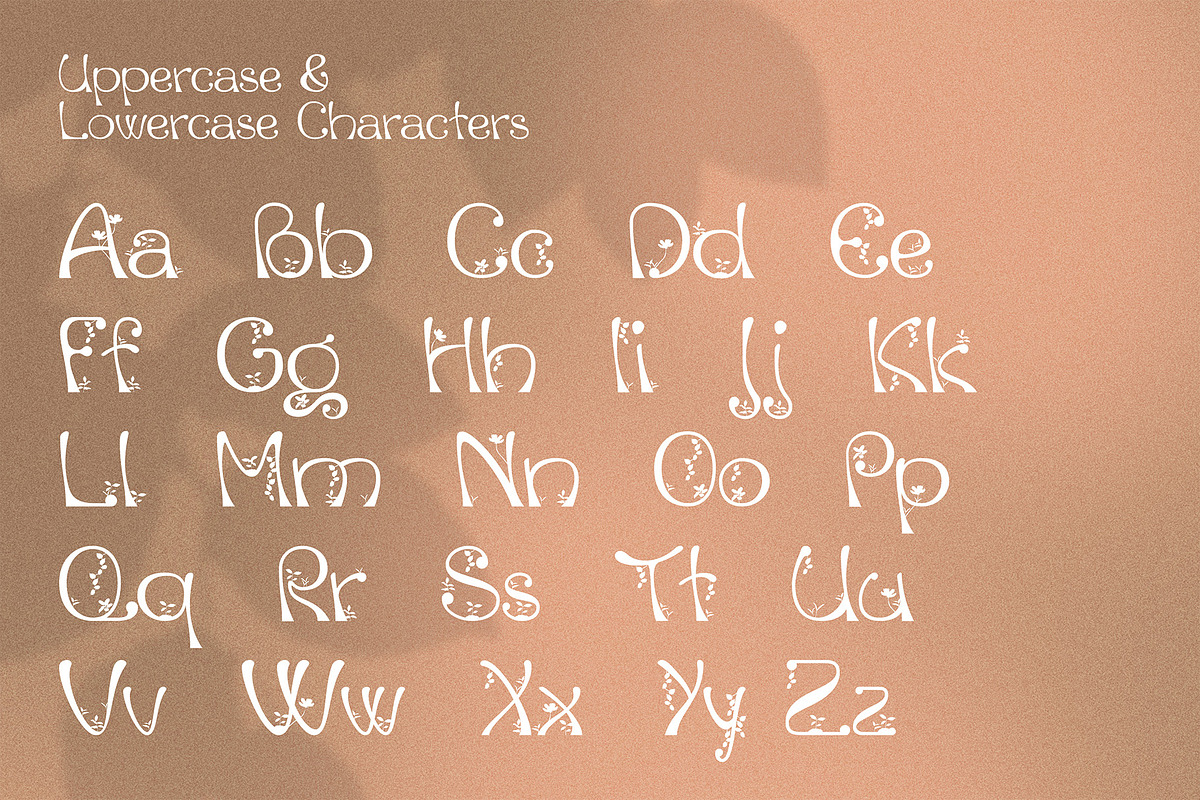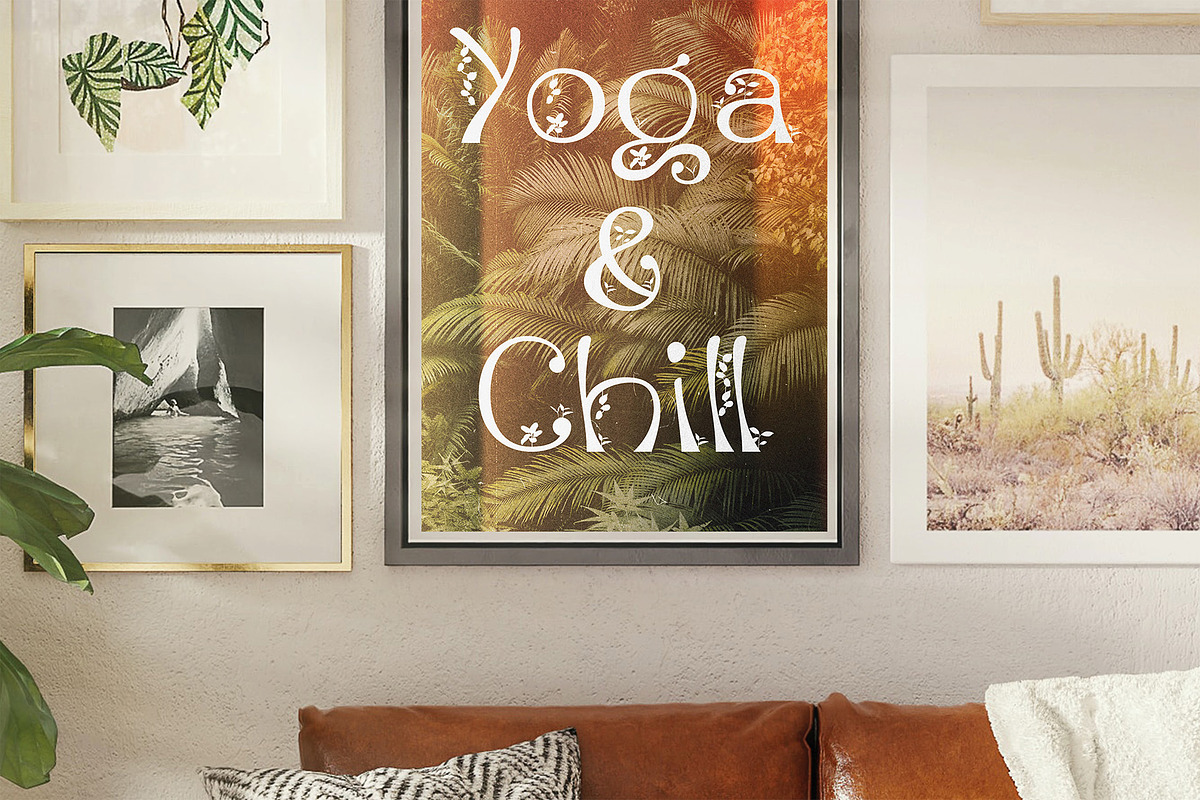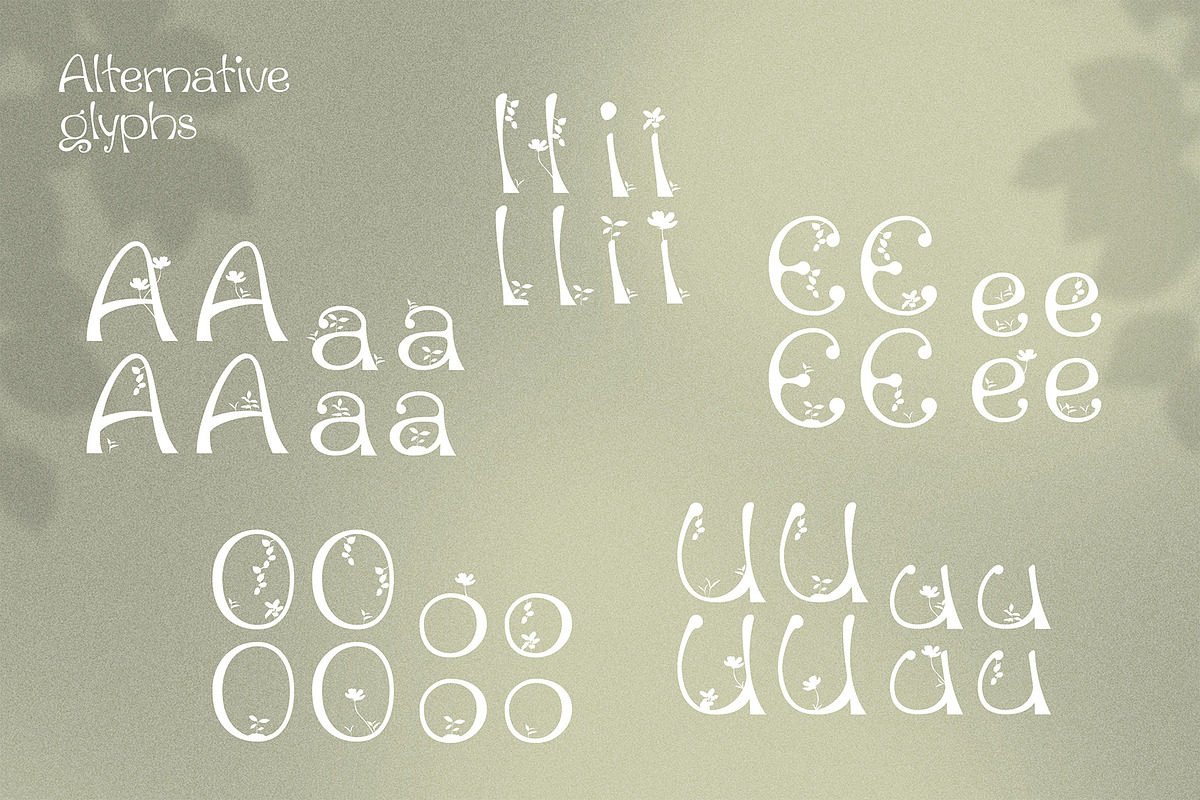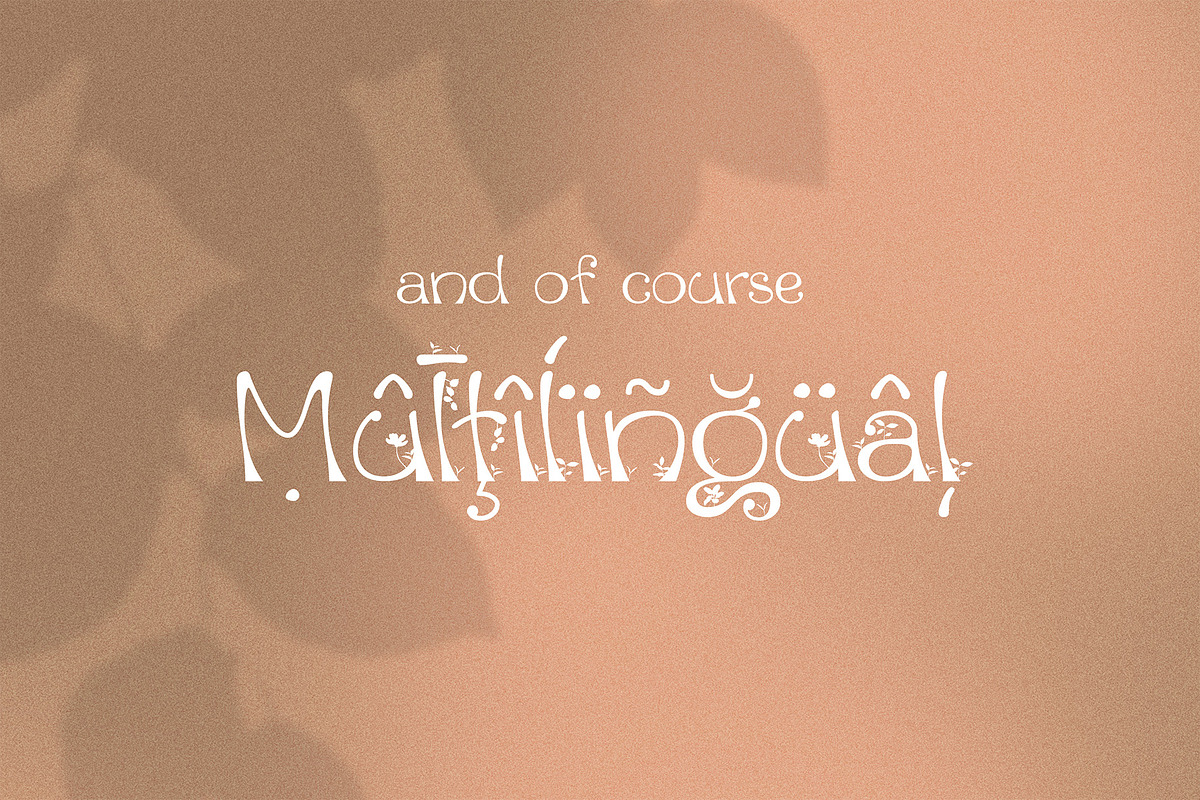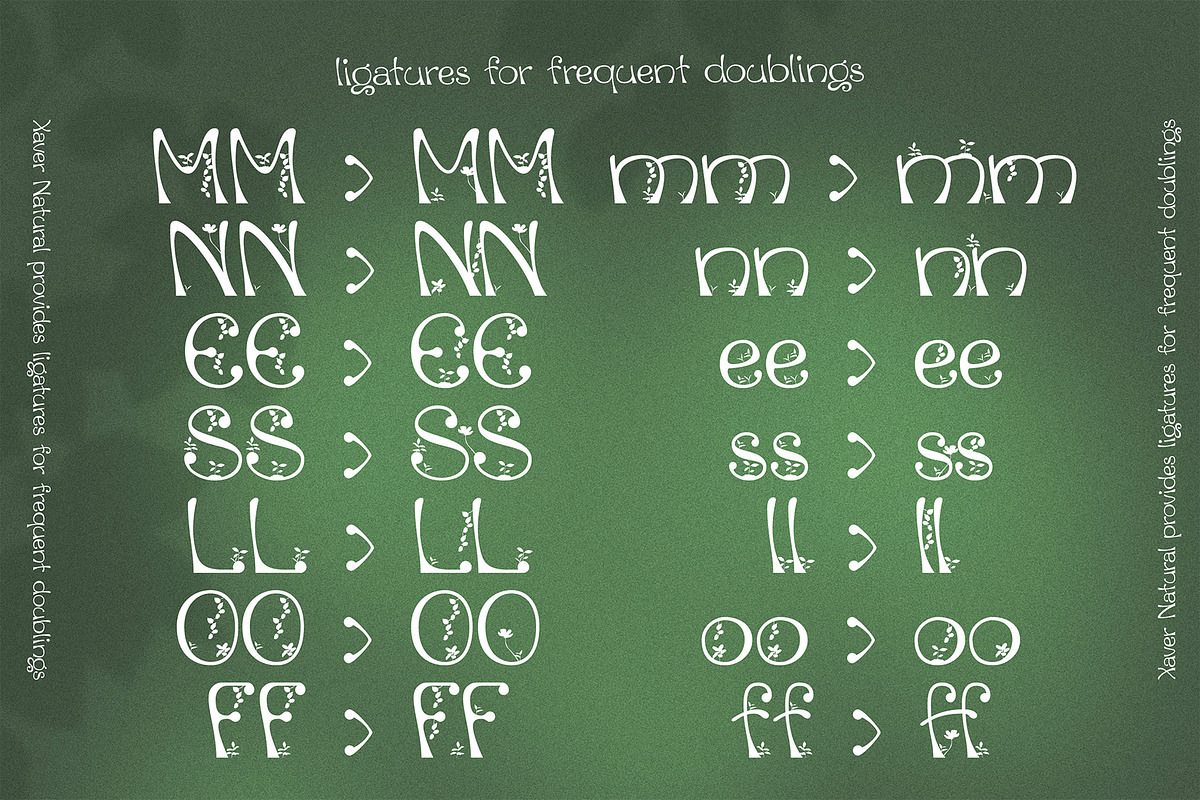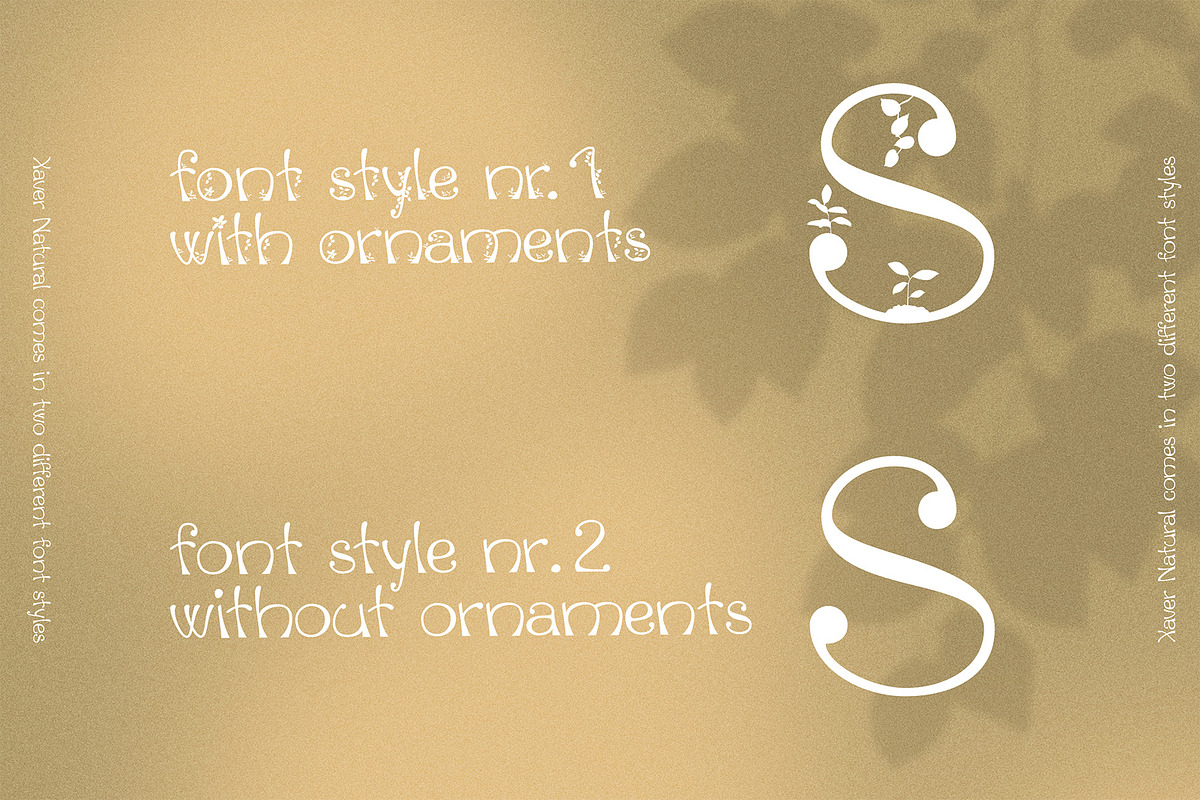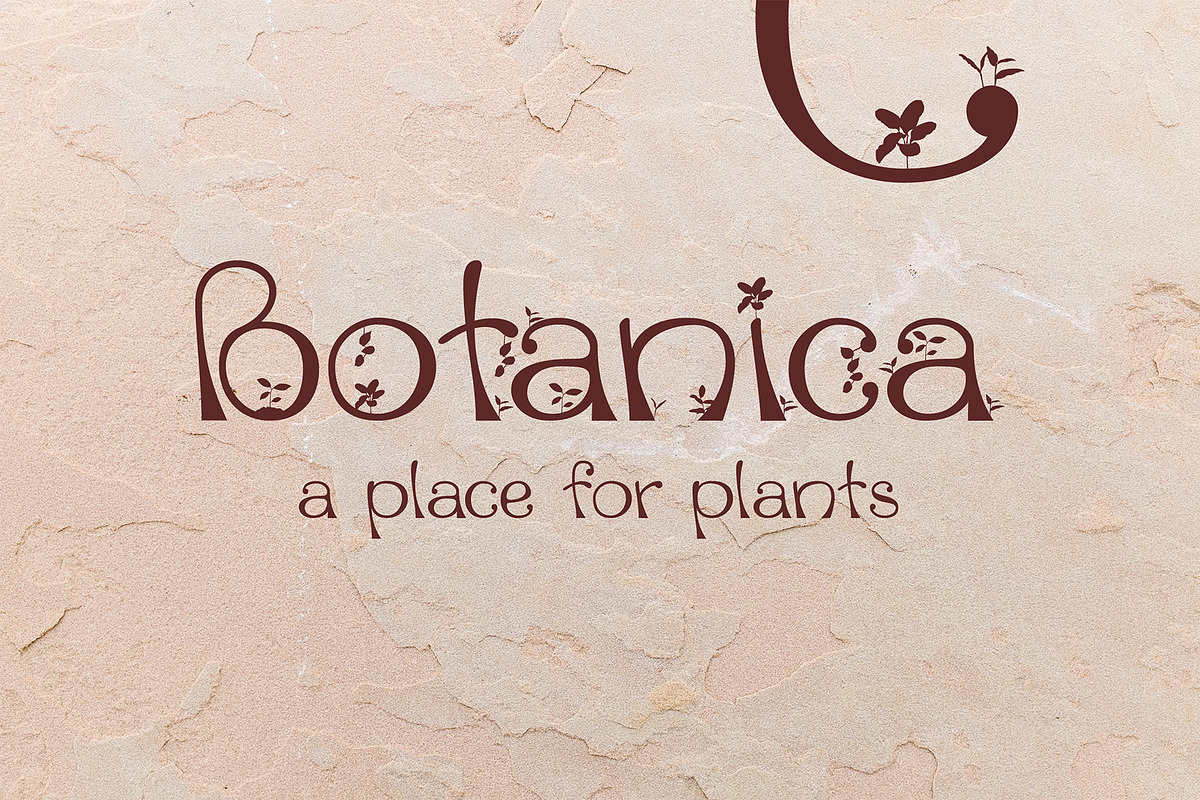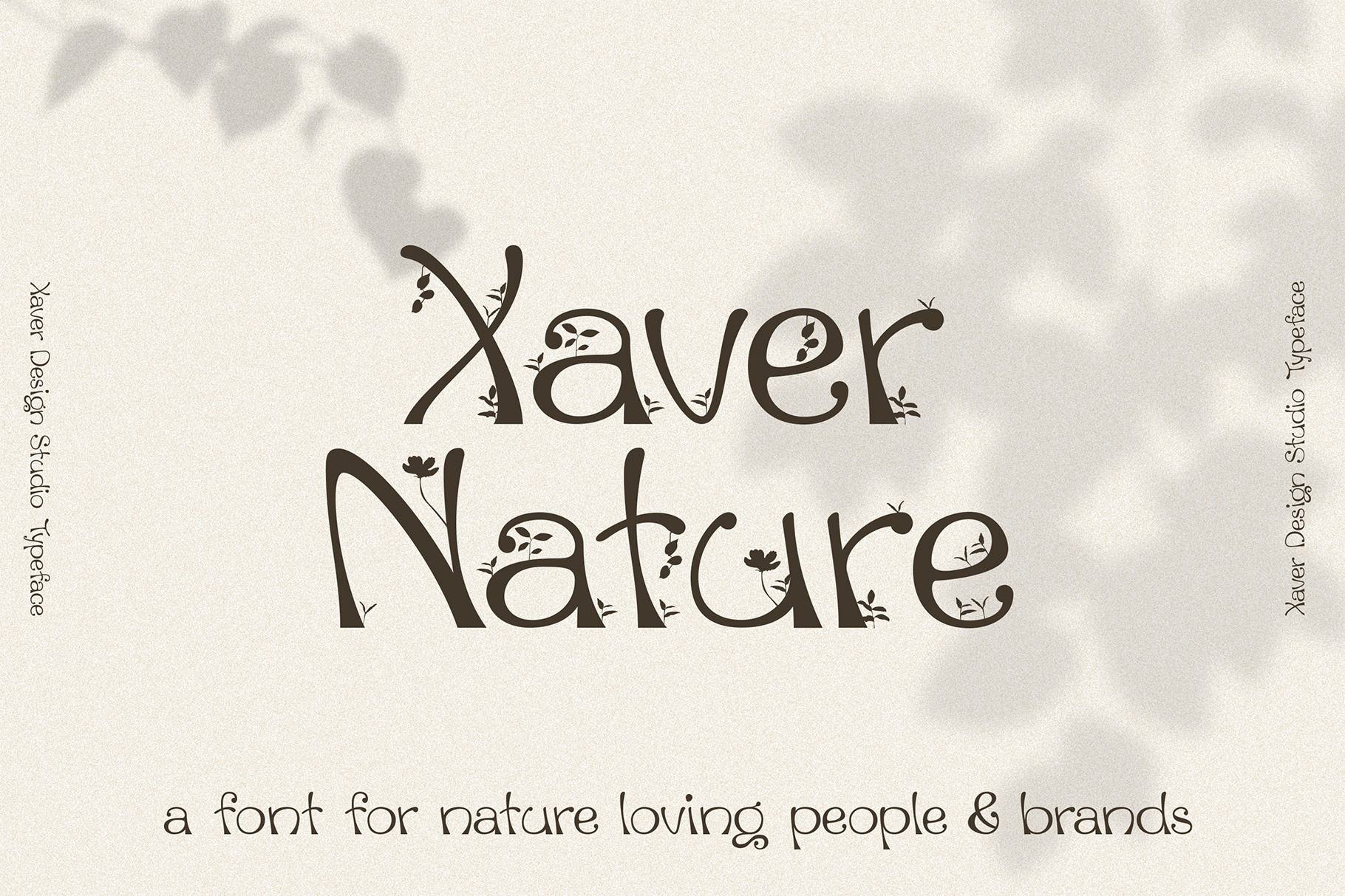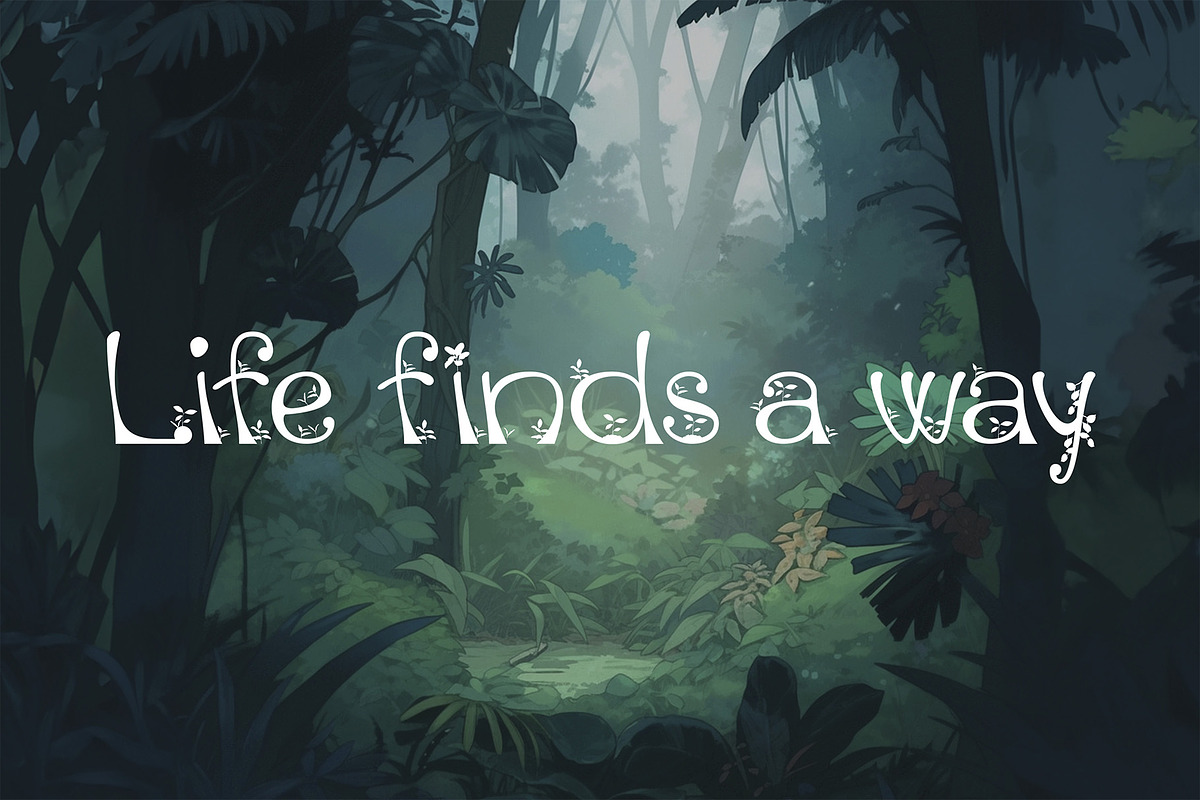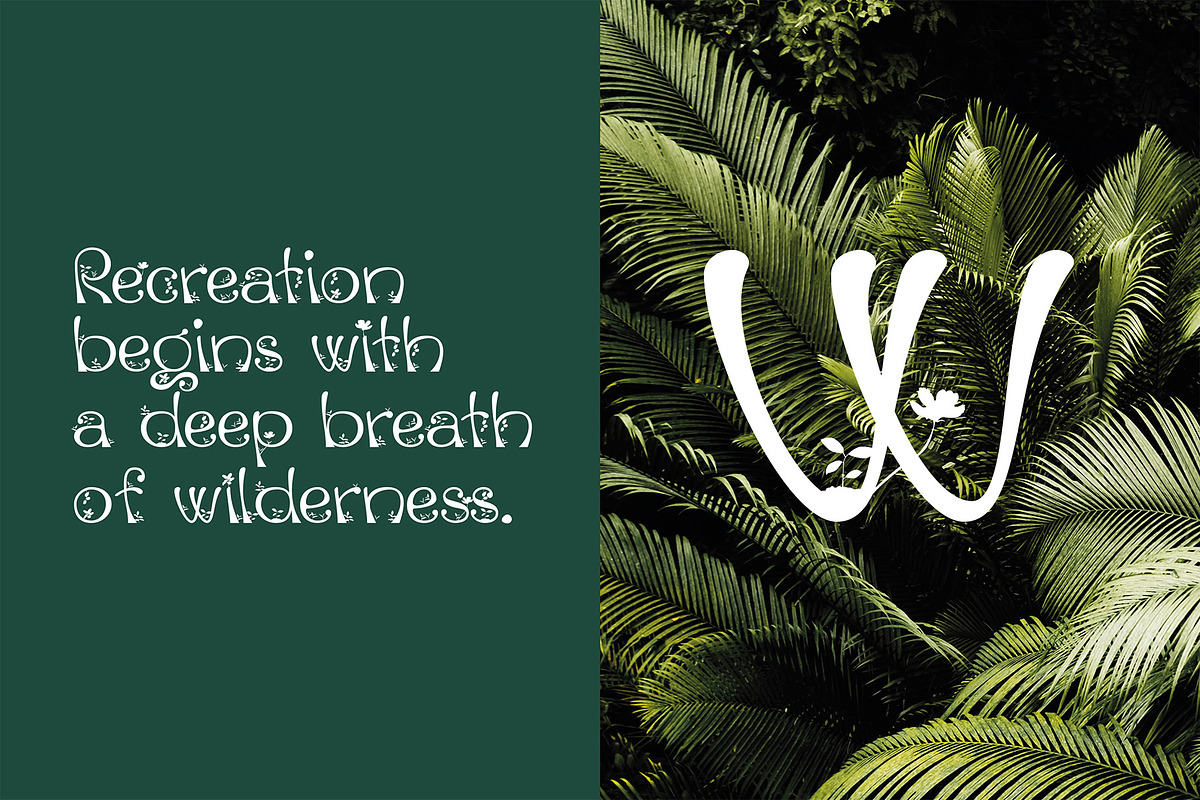
Xaver Nature Font
Xaver Nature is inspired by nature. Thus, it is characterized by curves and dynamic thickness of the stroke. At the same time, all letters are anchored on the baseline, which makes the font look calm despite its organic appearance. The font contains two weights: a basic weight that guarantees great legibility even in small sizes. A decorative cut that integrates plants into the typeface as decorative elements. This is particularly suitable for headlines and titles. Furthermore, it offers language support for the entire European region, the North American region, as well as for South America and Oceania.